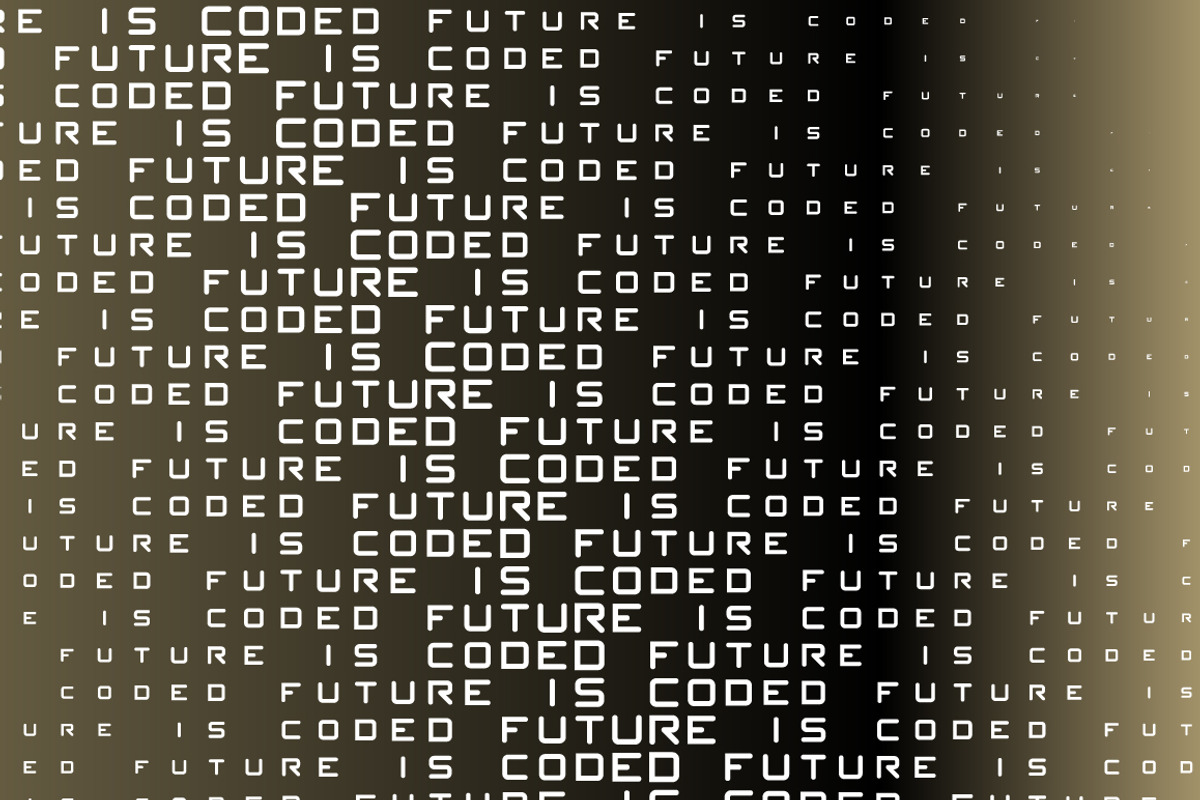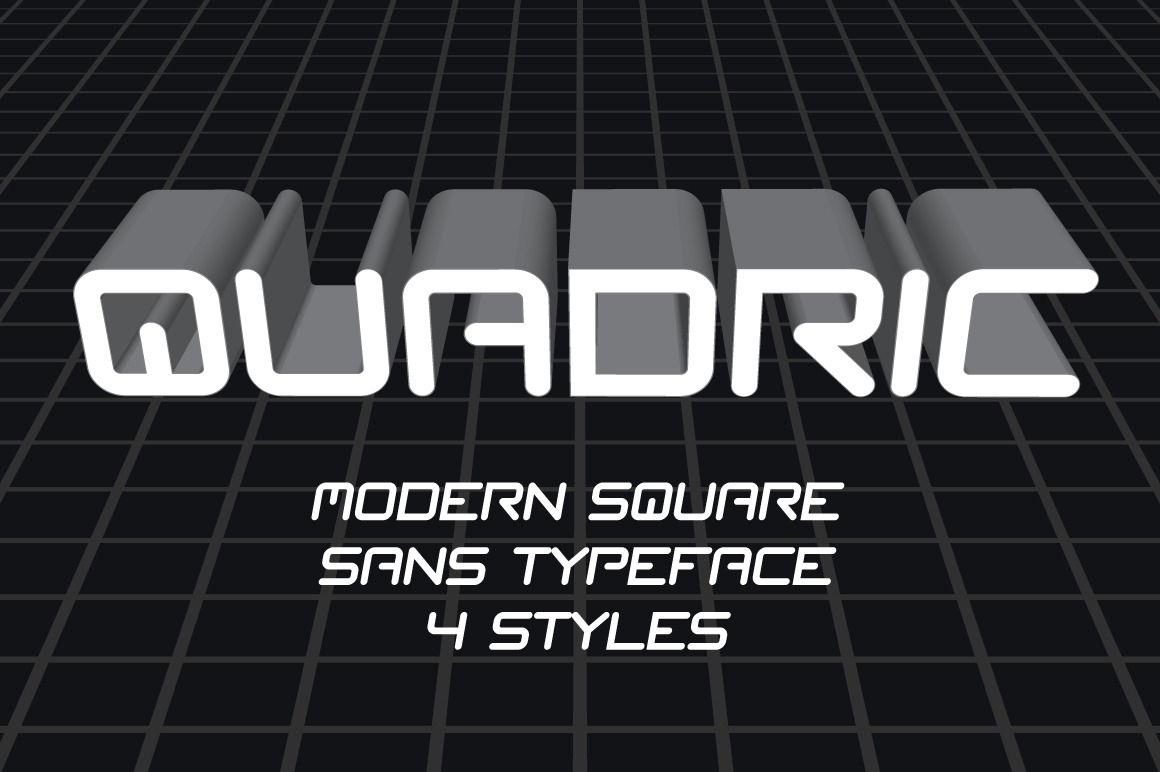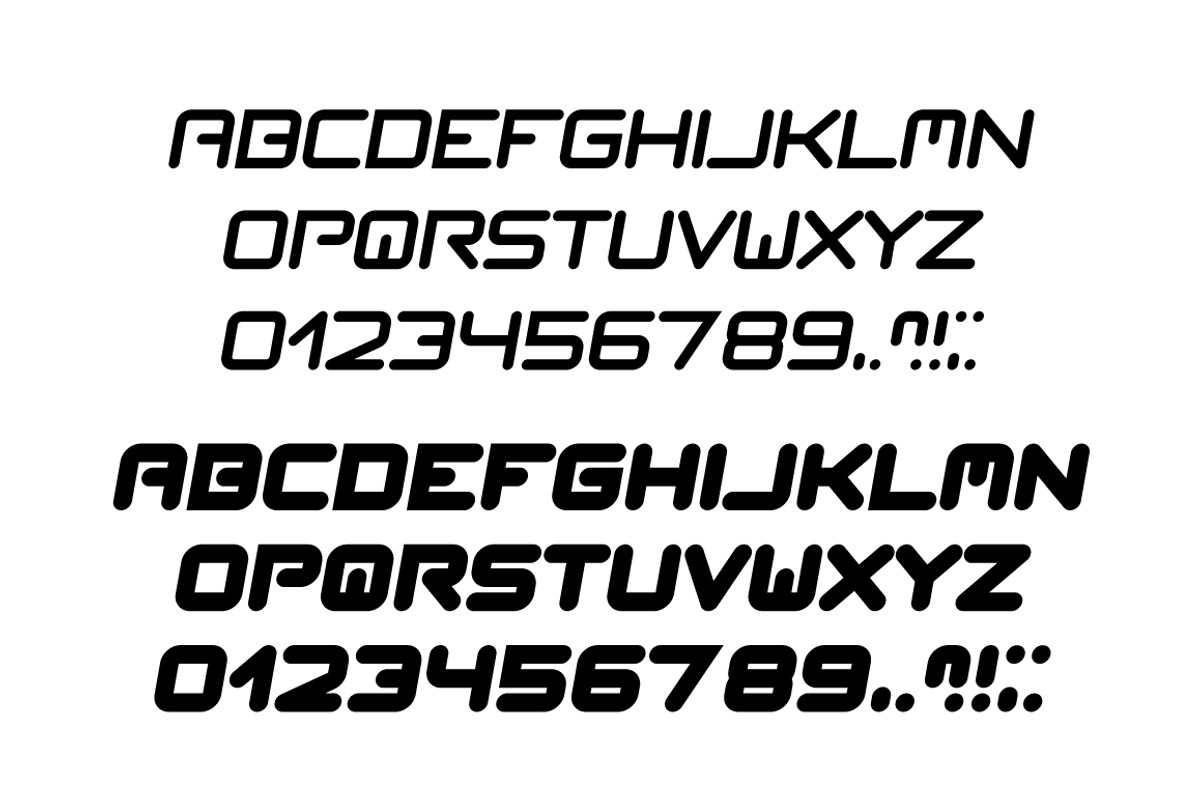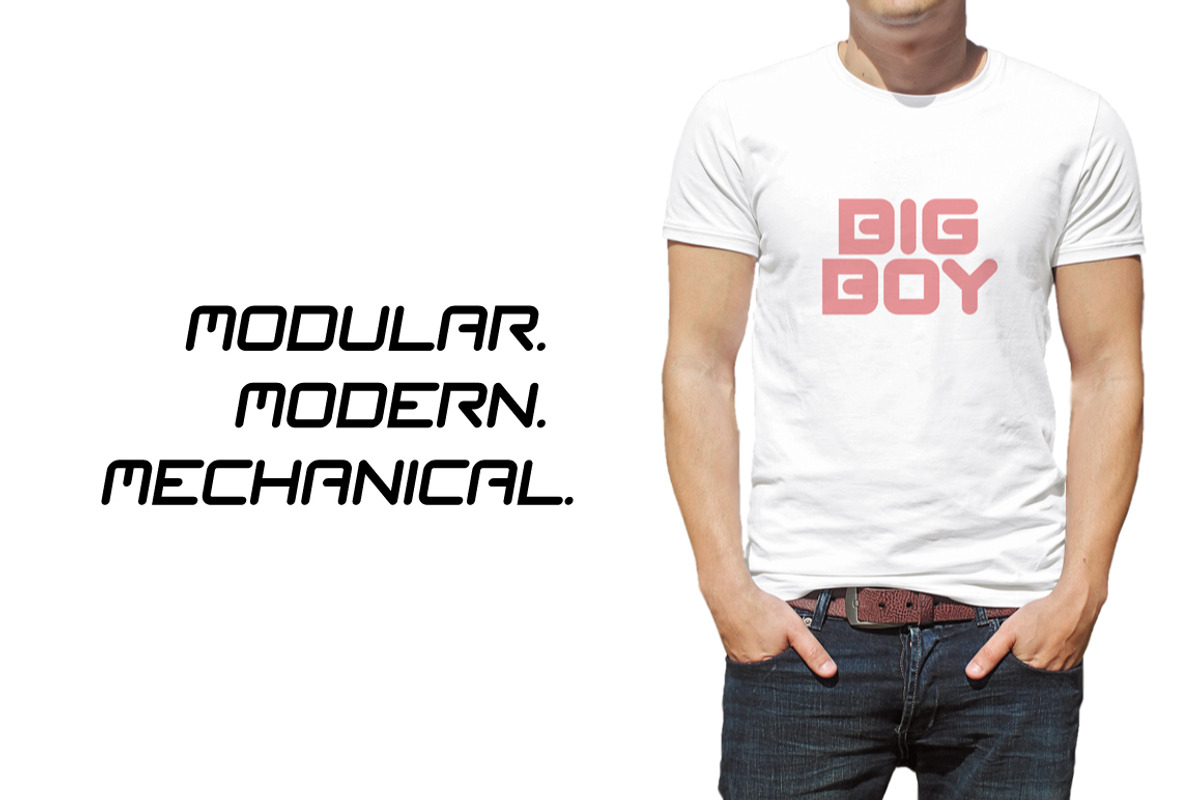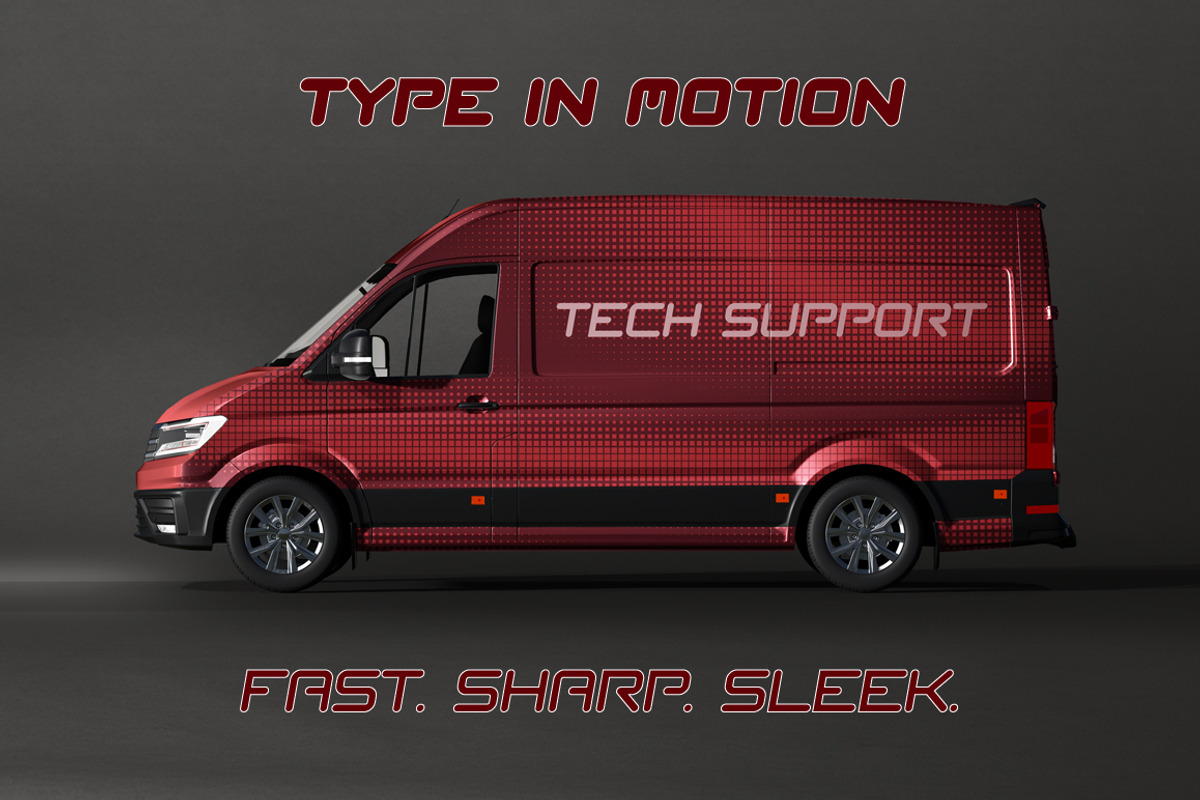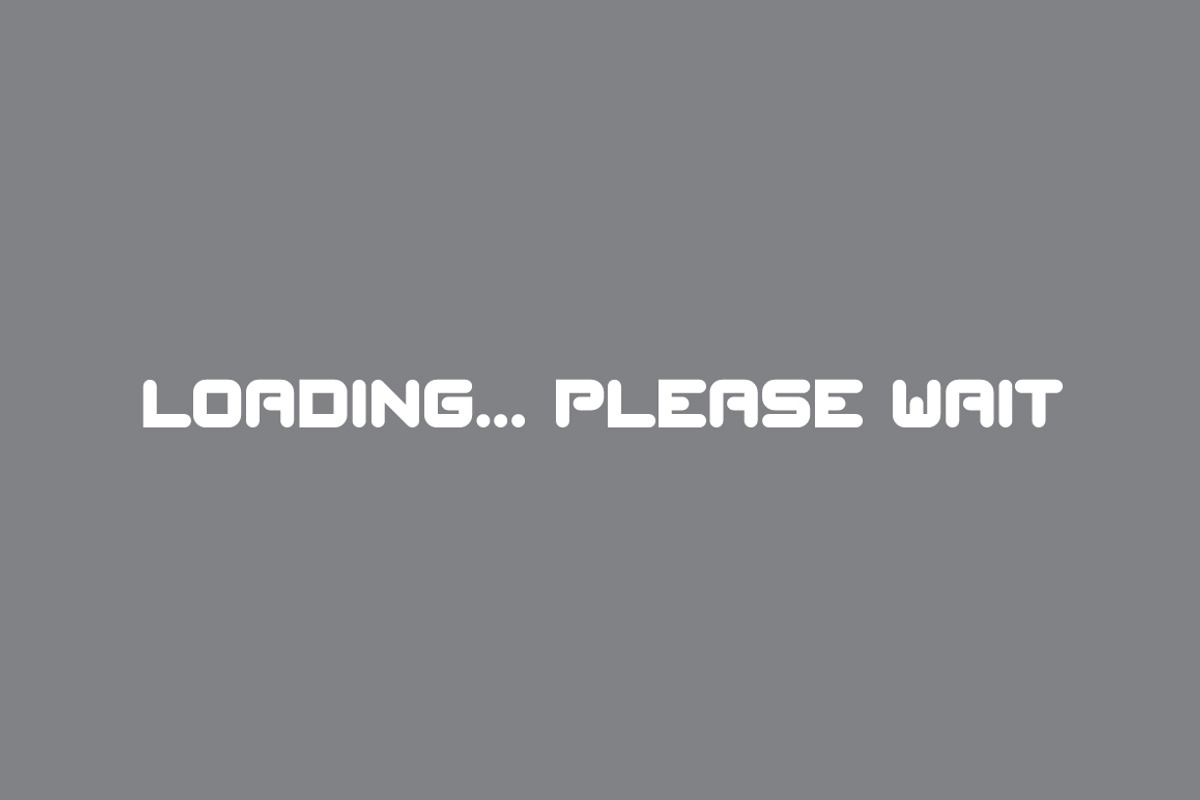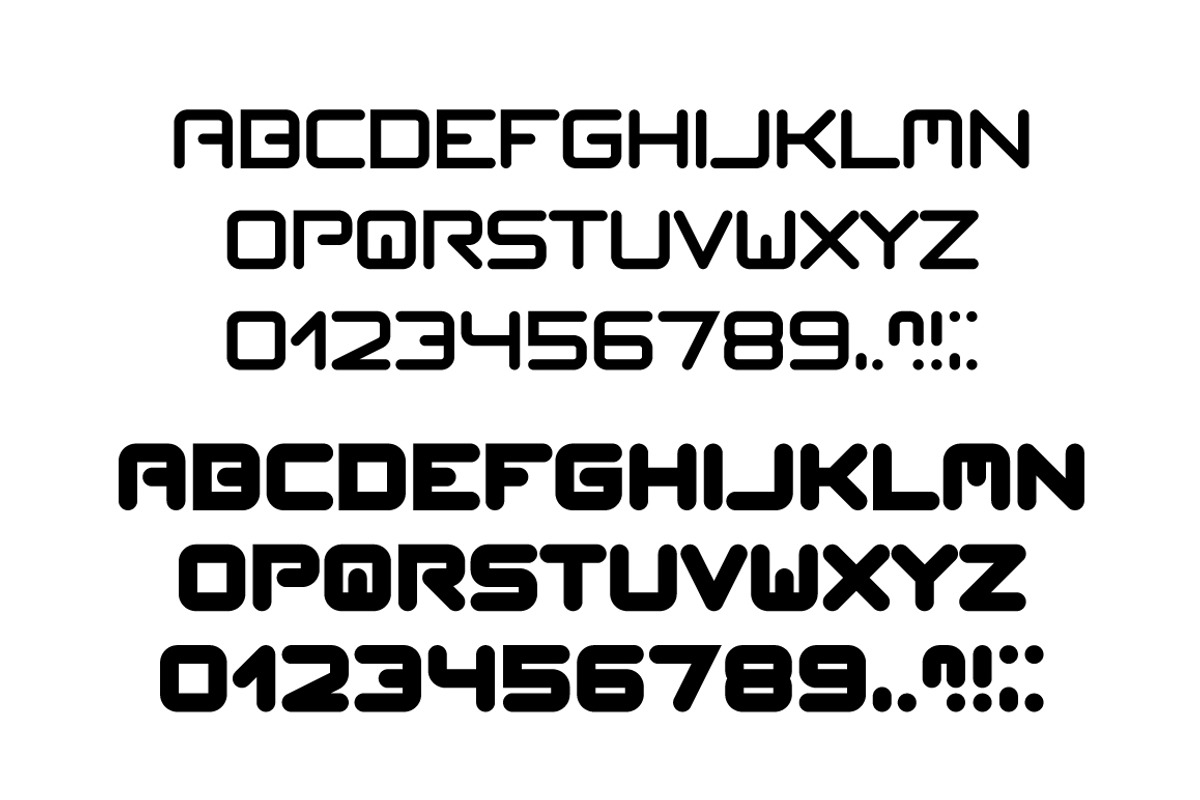
QUADRIC Modern Square Sans Typeface
QUADRIC is a modern geometric sans serif typeface with almost square-shaped characters and a futuristic spirit. Its clean curves and monospaced-like rhythm make it ideal for digital design, user interfaces, branding, sci-fi themes, and gaming titles.
The typeface includes four styles — Regular, Italic, Bold, and Bold Italic — allowing for versatile design use while maintaining consistency across weights and slants.
Whether you're creating a modern logo, a tech-inspired layout, or a minimal poster, Quadric delivers clarity and personality.
- All uppercase Latin alphabet A–Z
- Numbers 0–9
- Basic punctuation (.:!? and similar)
- Four font styles included
- Square and futuristic character construction
- Clean, digital-ready design
Let your next digital project stand on a solid, squared foundation with Quadric.